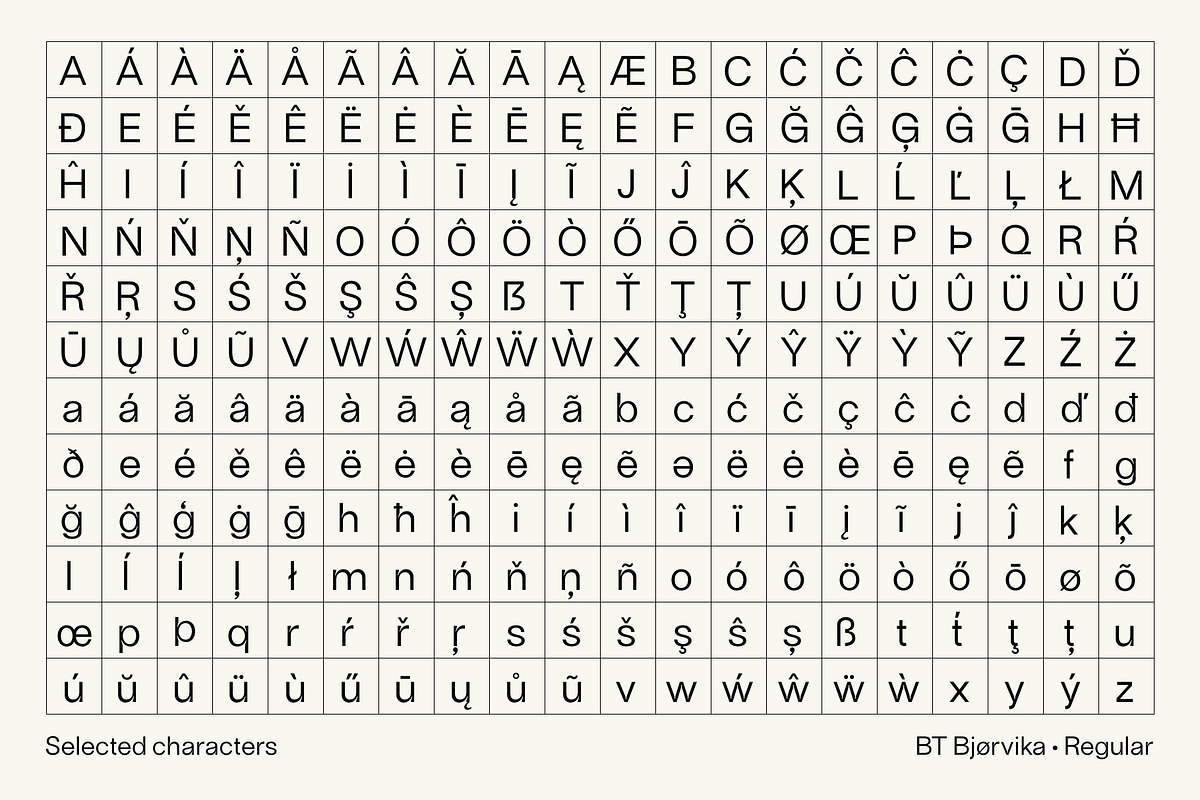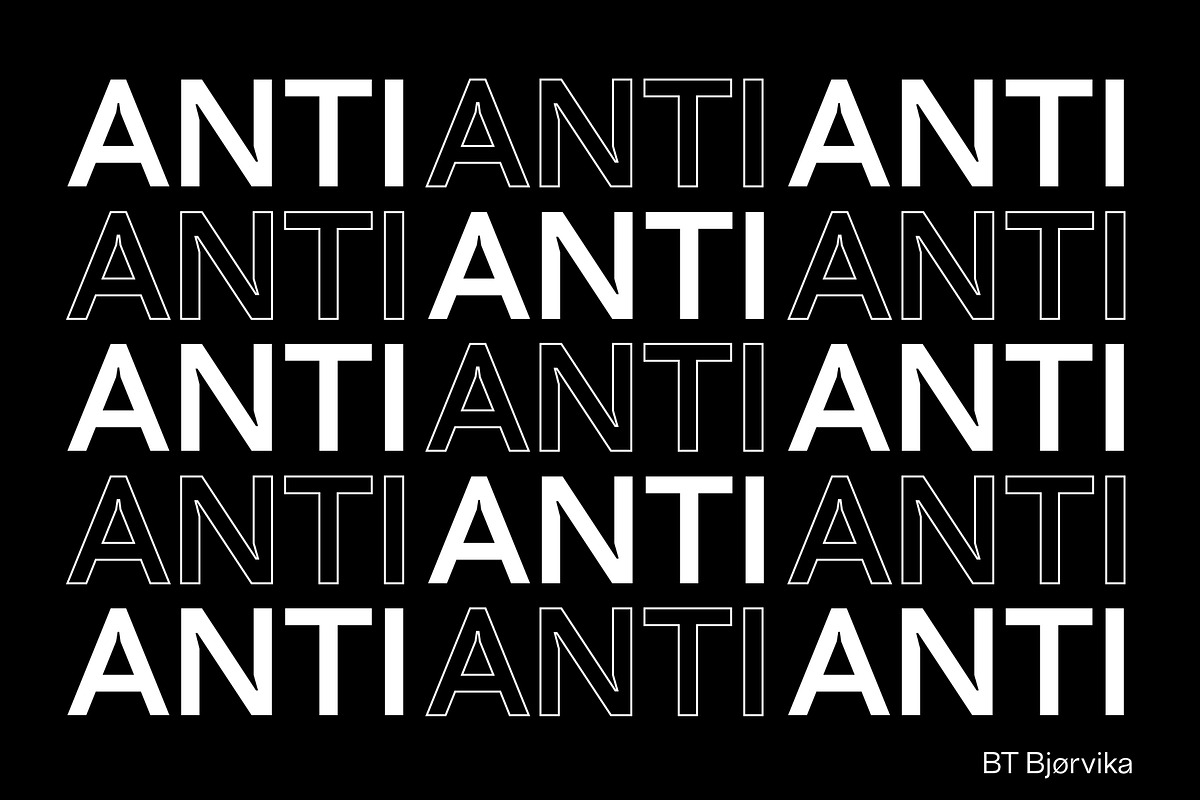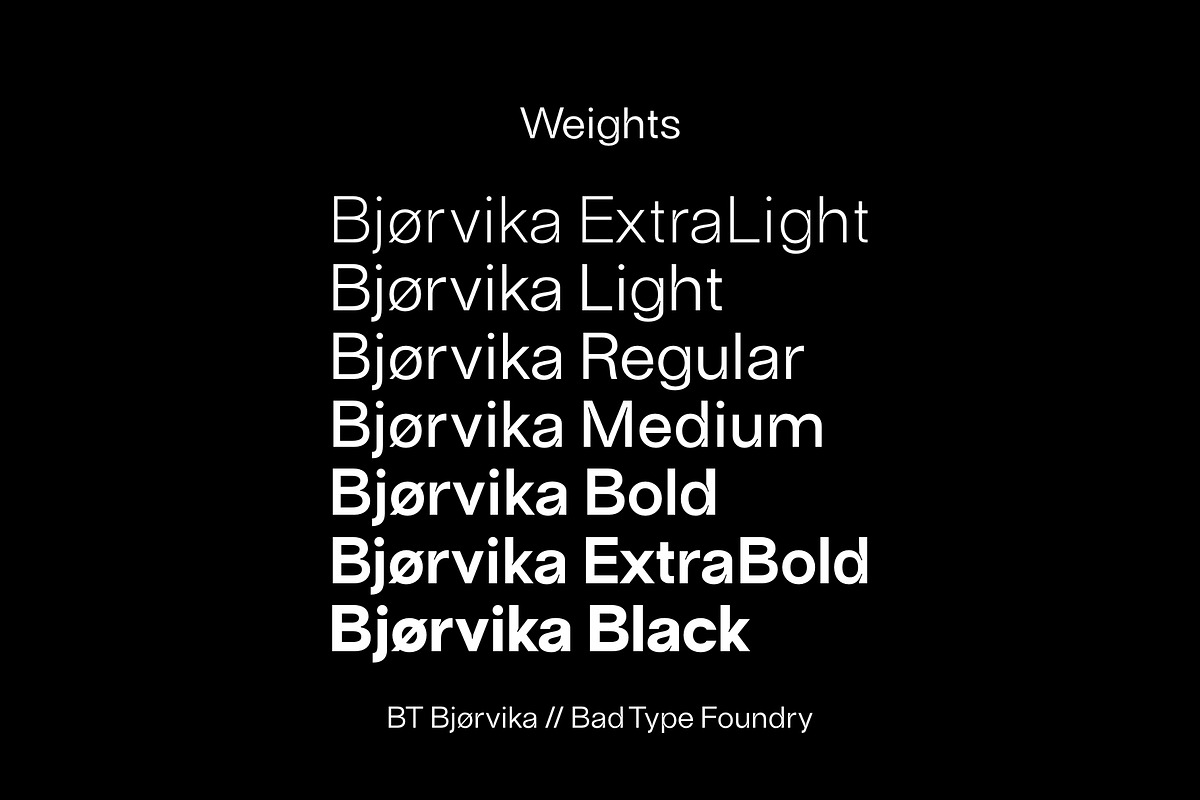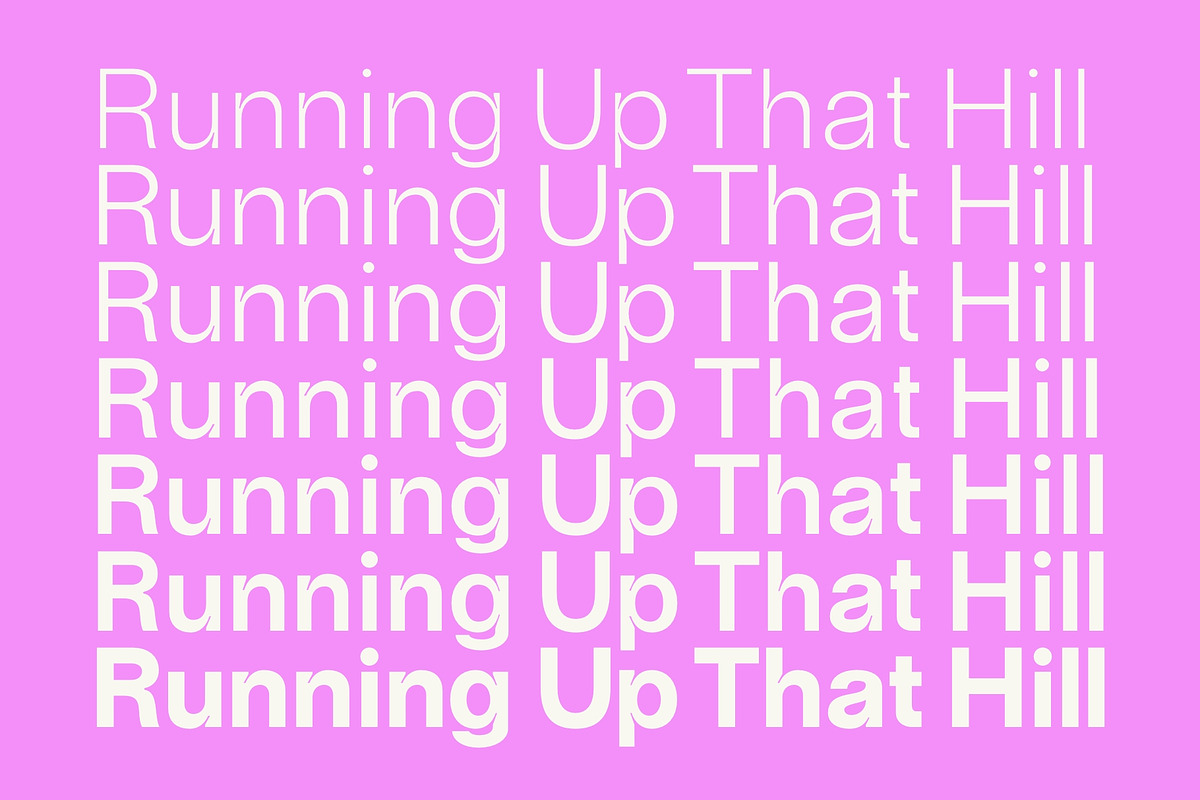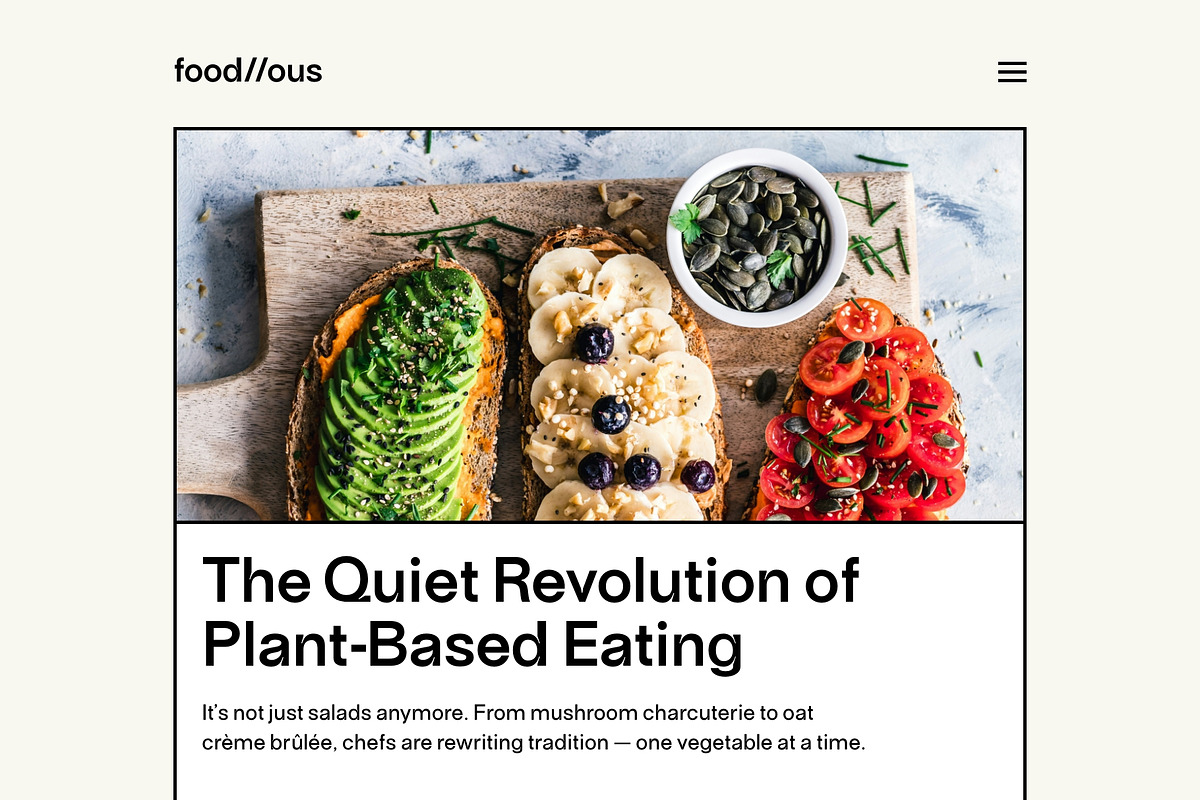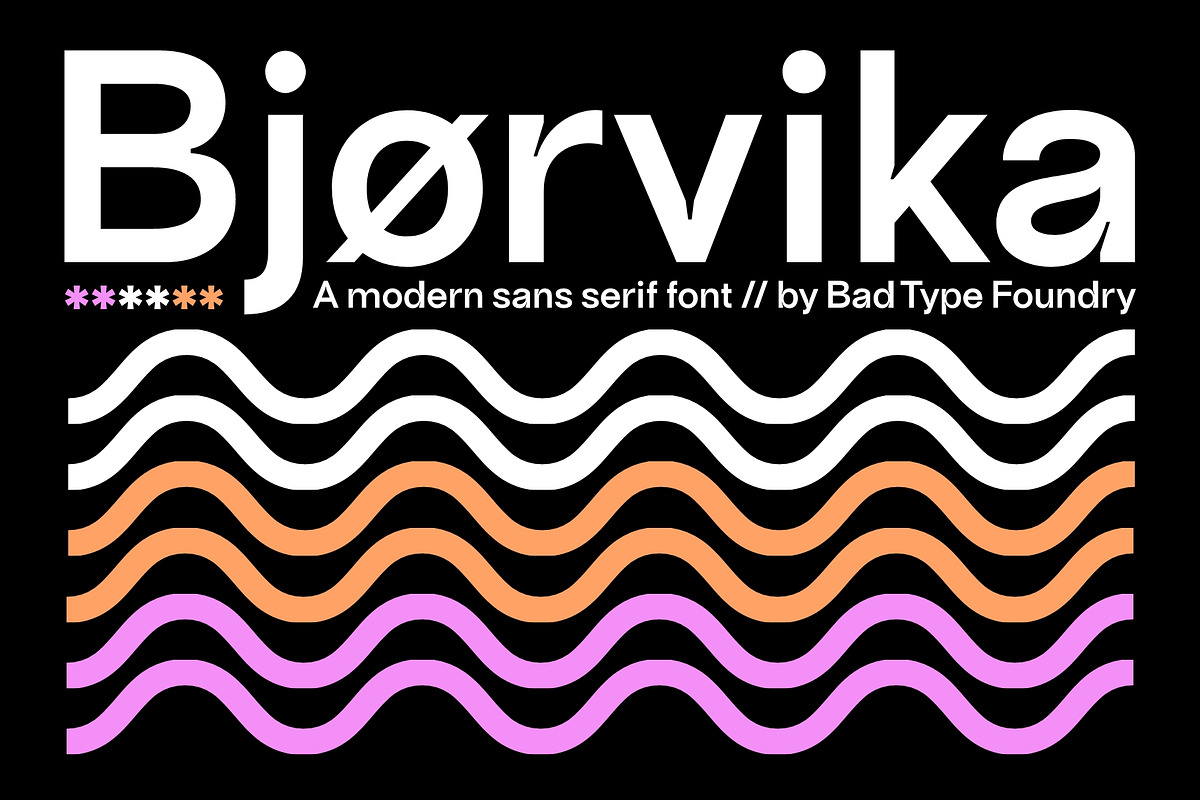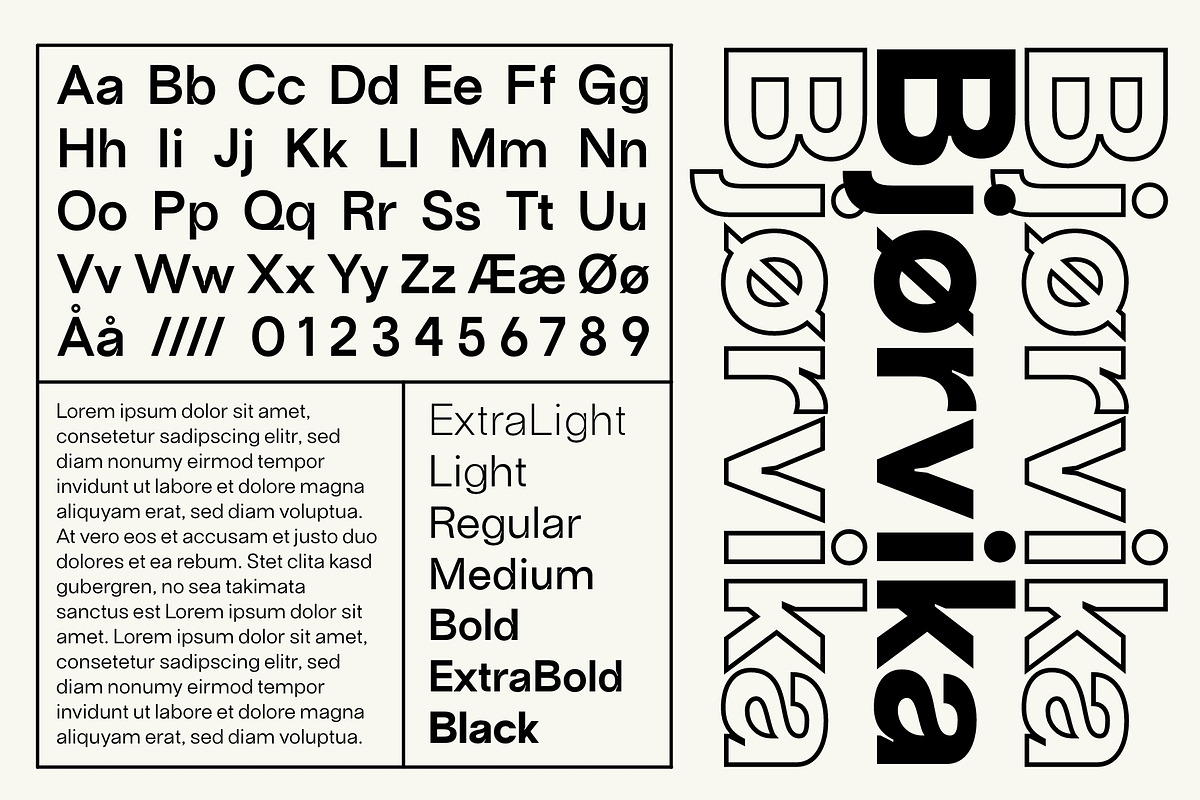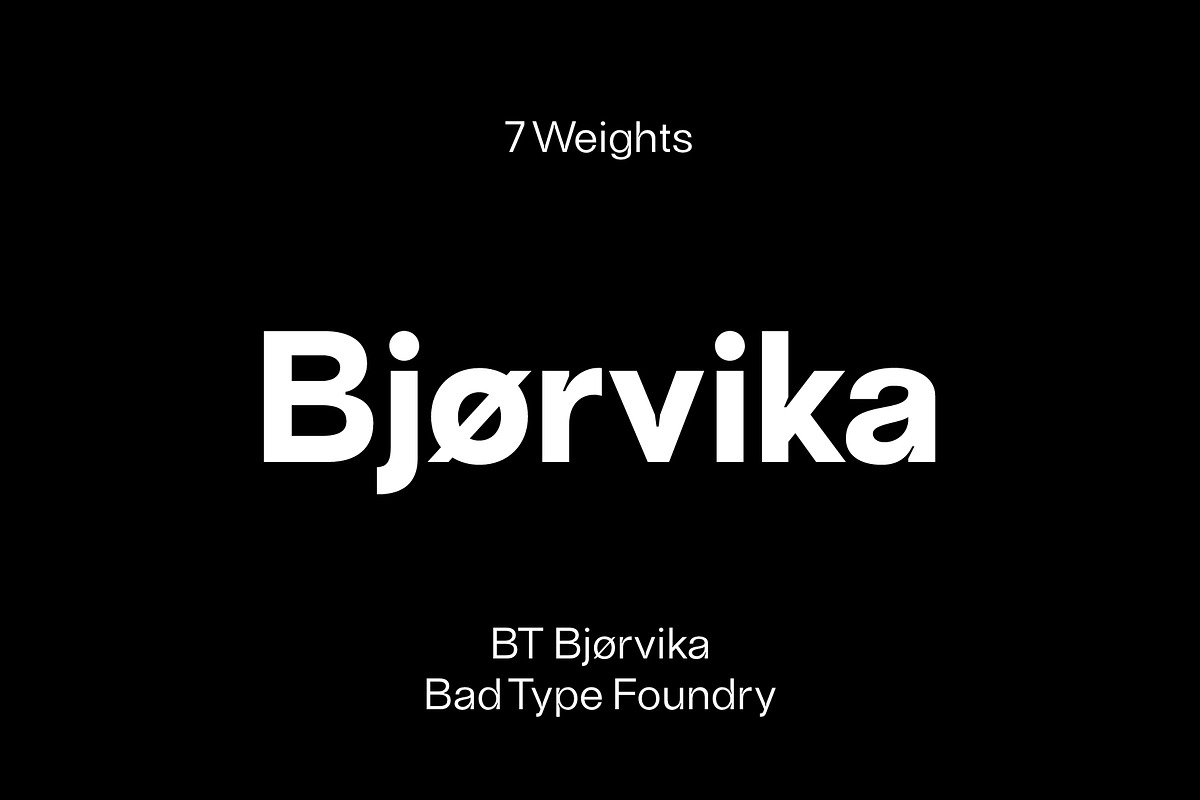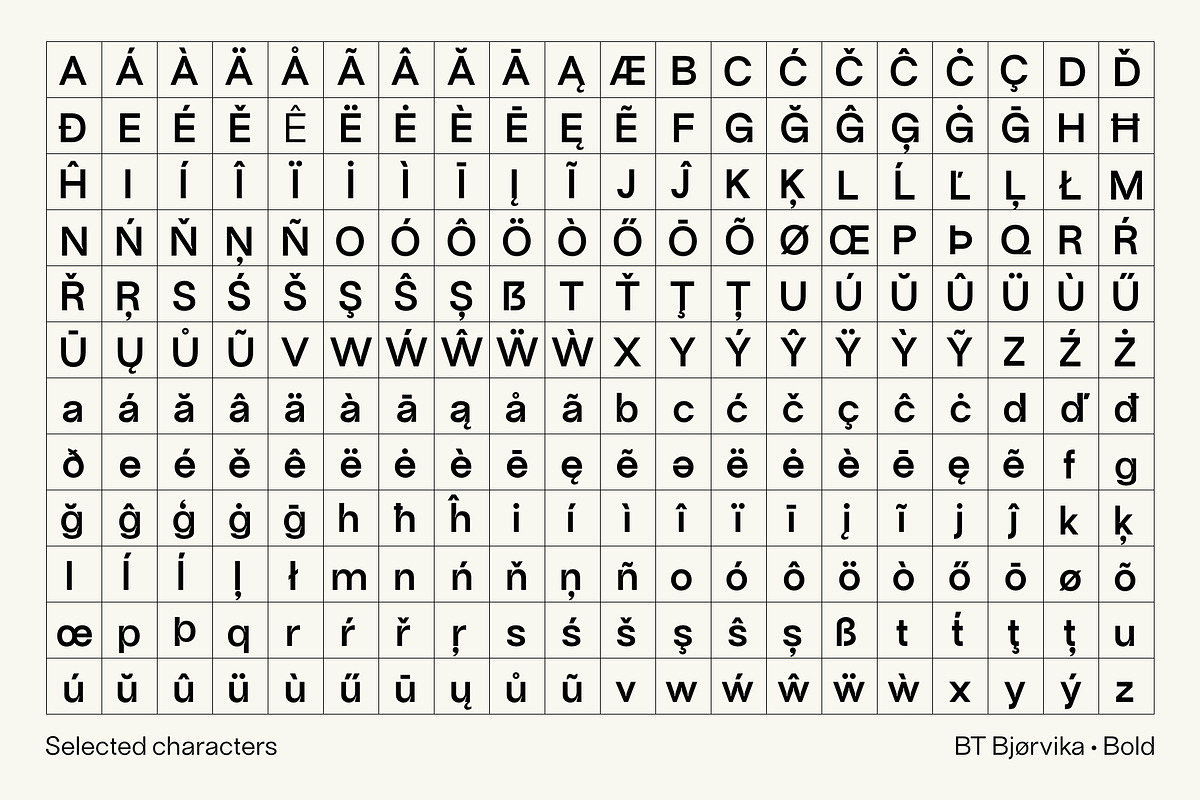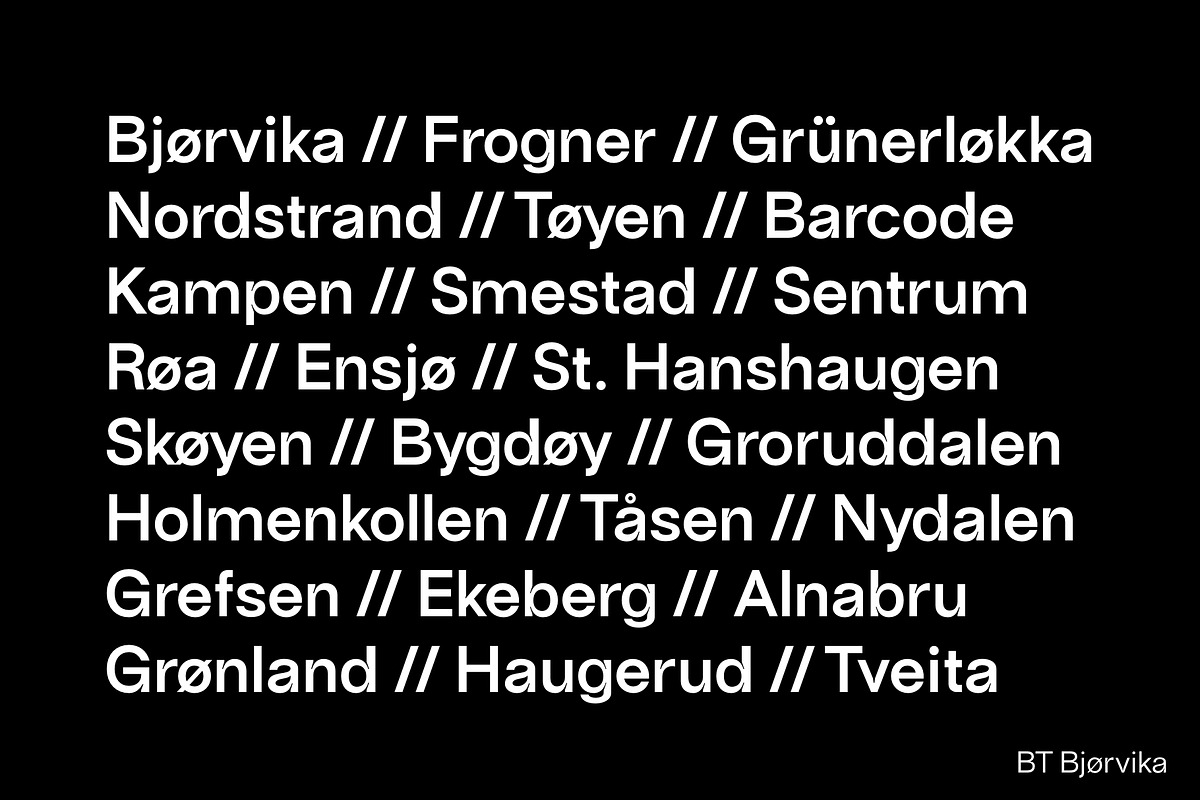
BT Bjørvika
BT Bjørvika is a clean, modern sans serif inspired by Scandinavian simplicity and contemporary urban architecture. Designed with subtle ink traps and precise geometry, it balances functionality with personality, making it suitable for both digital interfaces and printed editorial design.
Features • Modern sans serif with subtle ink traps • 7 weights (Light to Black) • Extensive Latin support: Western, Central, South Eastern European, South American, Oceanian, Vietnamese, Esperanto • Scandinavian characters (including Æ Ø Å) • Optimized for both display and text sizes